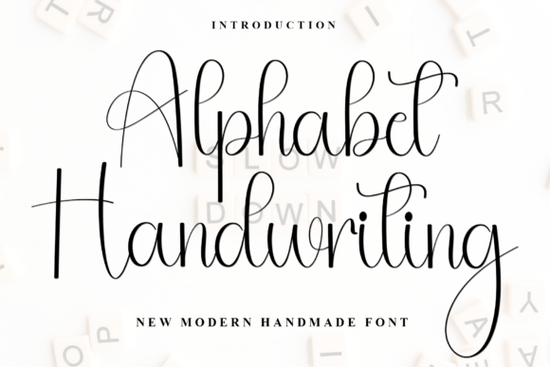
If you're looking for a handwritten-style typeface that feels personal yet polished, the Alphabet Handwriting Font is worth a closer look. Designed with soft, flowing strokes and subtle character details, it brings warmth to everything from greeting cards to branding mockups. Unlike rigid or overly stylized script fonts, this one strikes a balance between legibility and artistic flair making it especially useful for designers, crafters, and small business owners who want their work to feel approachable and human.
What makes Alphabet Handwriting stand out from other script fonts?
Many handwriting fonts lean too heavily into either neatness (feeling robotic) or chaos (hard to read). Alphabet Handwriting avoids both extremes. Its letterforms have gentle irregularities slight variations in stroke width, organic curves, and natural spacing that mimic real pen-on-paper writing without sacrificing clarity. This gives your projects a handcrafted vibe while still looking professional.
Who should consider using this font?
This font works well for a range of creative users:
- Print-on-demand sellers creating mugs, tote bags, or wall art with inspirational quotes.
- Small business owners designing logos, packaging, or social media graphics that need a friendly tone.
- Crafters making handmade cards, scrapbook layouts, or vinyl decals.
- Teachers and educators preparing classroom materials with a personal touch.
Because of its neutral-yet-expressive style, it pairs easily with minimalist layouts or more ornate designs depending on your project’s mood.
How does it compare to other popular script fonts?
If you’ve browsed Creative Fabrica’s script collection, you might already know fonts like Cowboy Font, which leans into rustic charm, or Elemental Calligraphy, which offers dramatic swashes for formal invitations. Alphabet Handwriting sits in a different lane: it’s understated, versatile, and everyday-use friendly.
For example, if you liked the cozy pairing potential of Better Together Font but wanted something even simpler, Alphabet Handwriting could be your go-to. Or if you’ve used Monday Font for its clean lines but need more organic variation, this font adds just enough texture without overwhelming your layout.
And unlike highly decorative options like Sacred Notes Duo Font, which shines in ceremonial or spiritual contexts, Alphabet Handwriting adapts effortlessly to casual, commercial, or educational uses.
Practical tips for using Alphabet Handwriting effectively
To get the most out of this font, keep these ideas in mind:
- Avoid tiny sizes. Because of its handwritten nature, very small text (below 10–12 pt) may lose legibility, especially in print.
- Pair it with a clean sans-serif. Fonts like Montserrat, Lato, or even system defaults (Arial, Helvetica) create nice contrast without competing.
- Use generous line spacing. Slightly increased leading (line height) helps each word breathe and improves readability.
- Limit all-caps usage. The lowercase forms carry the font’s personality best; uppercase is better reserved for initials or short headings.